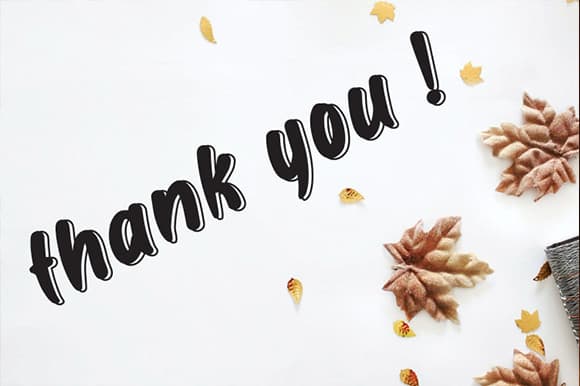
Black line Display Font
Black line Display Font is the latest style letters are perfect for wall displays, wedding invitations, social media post logos,